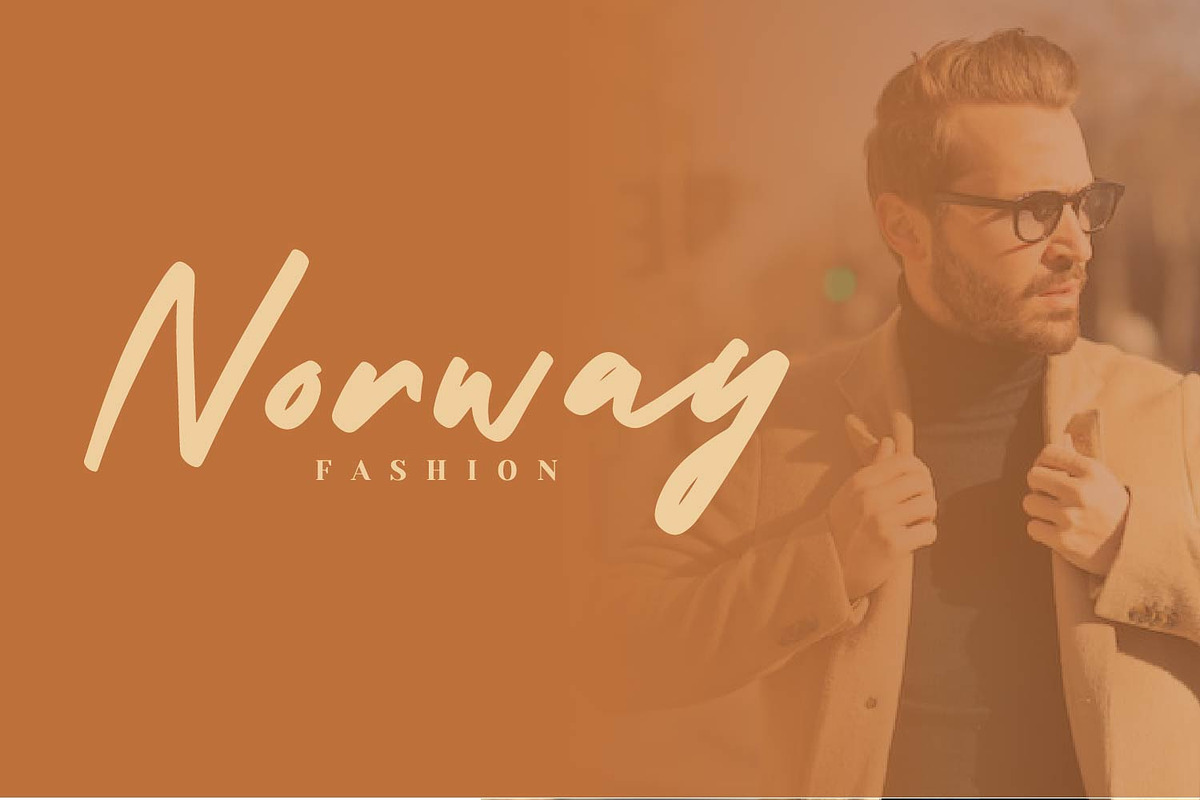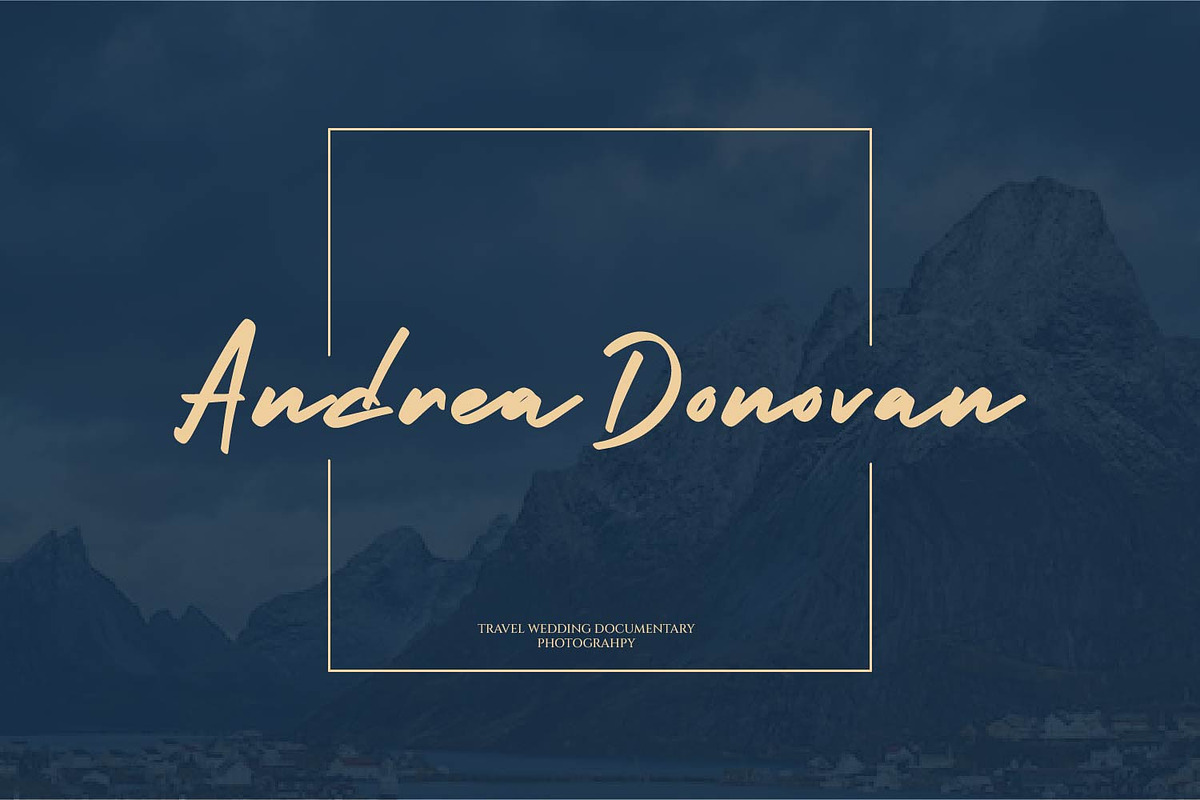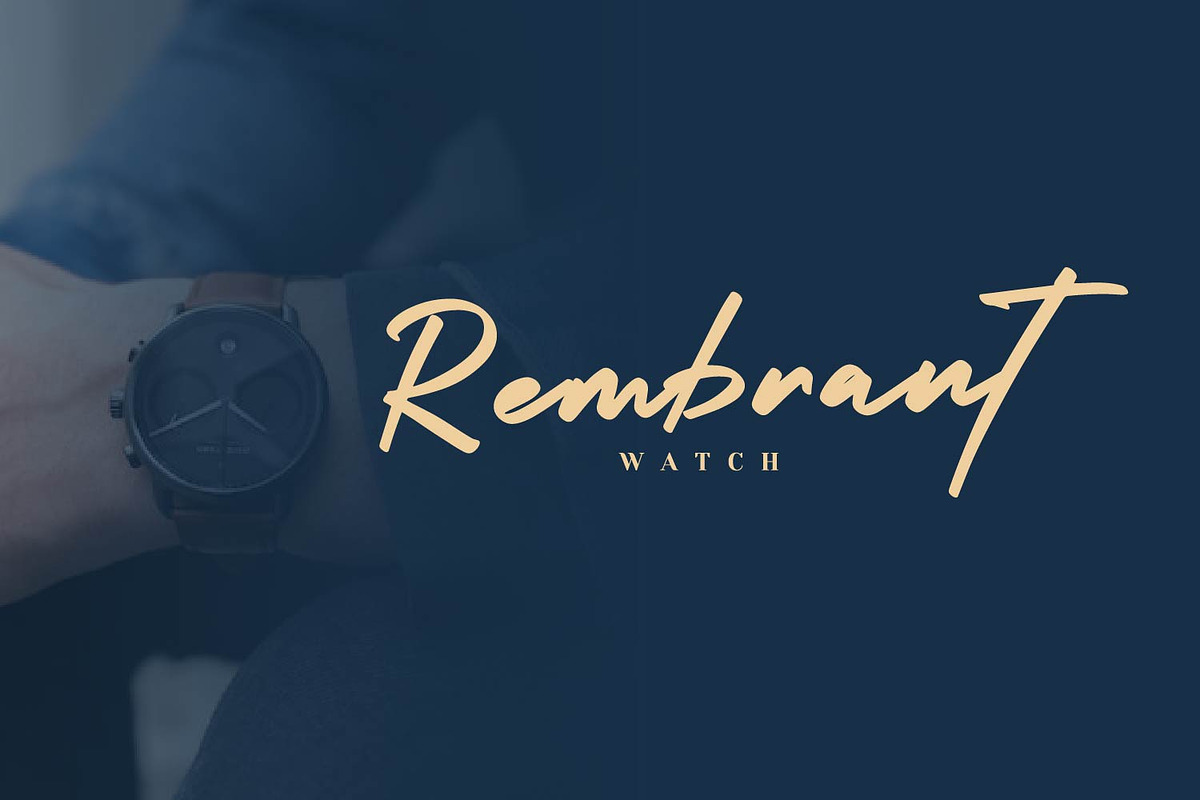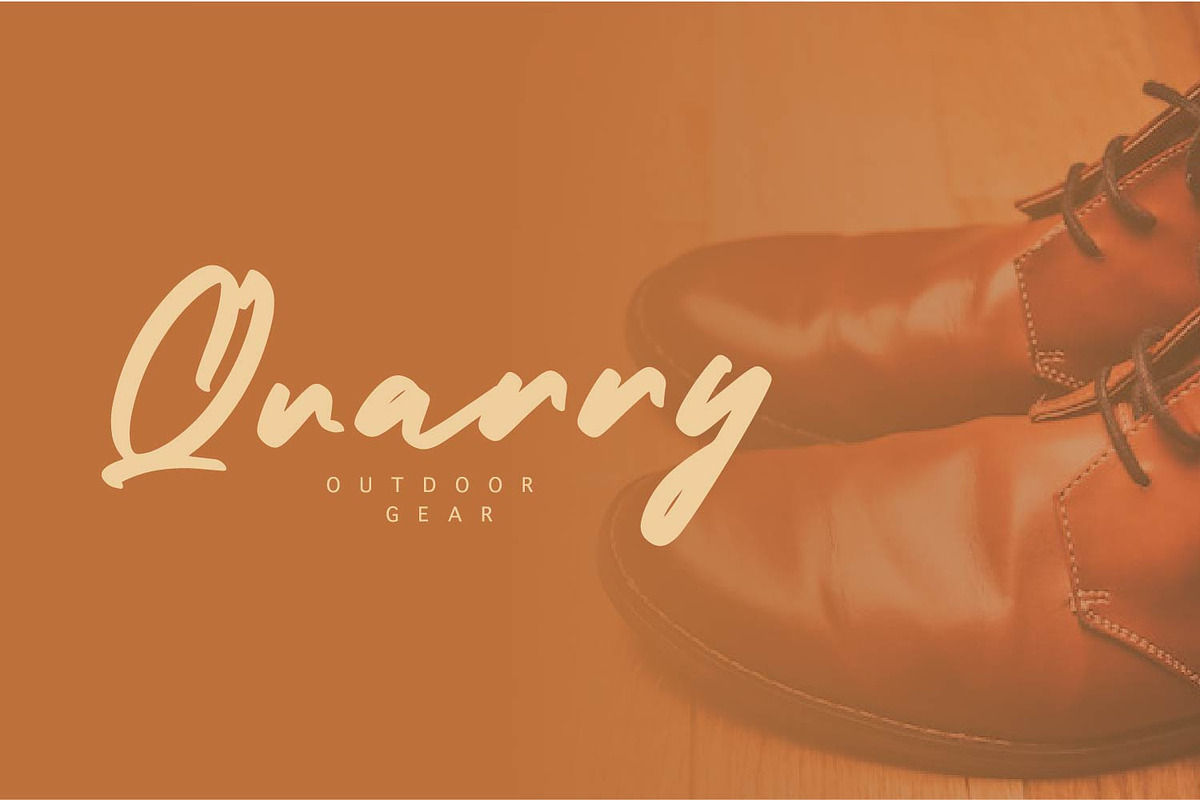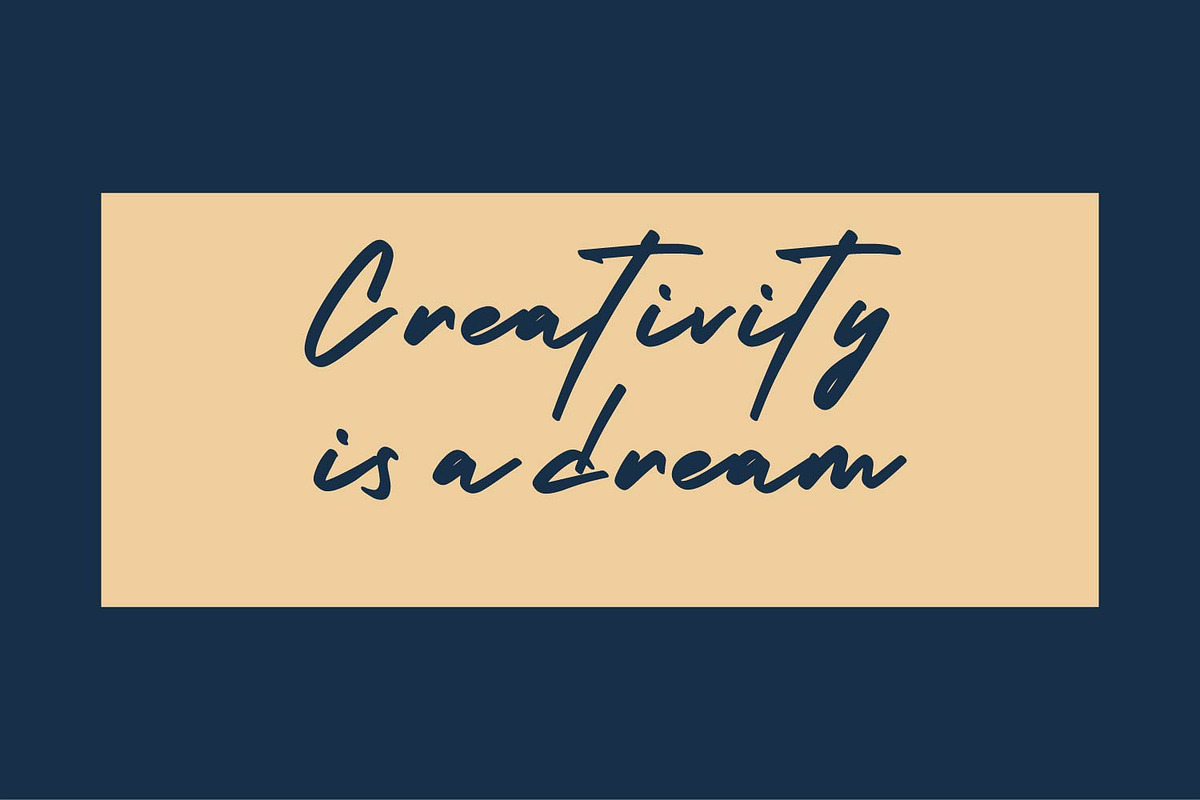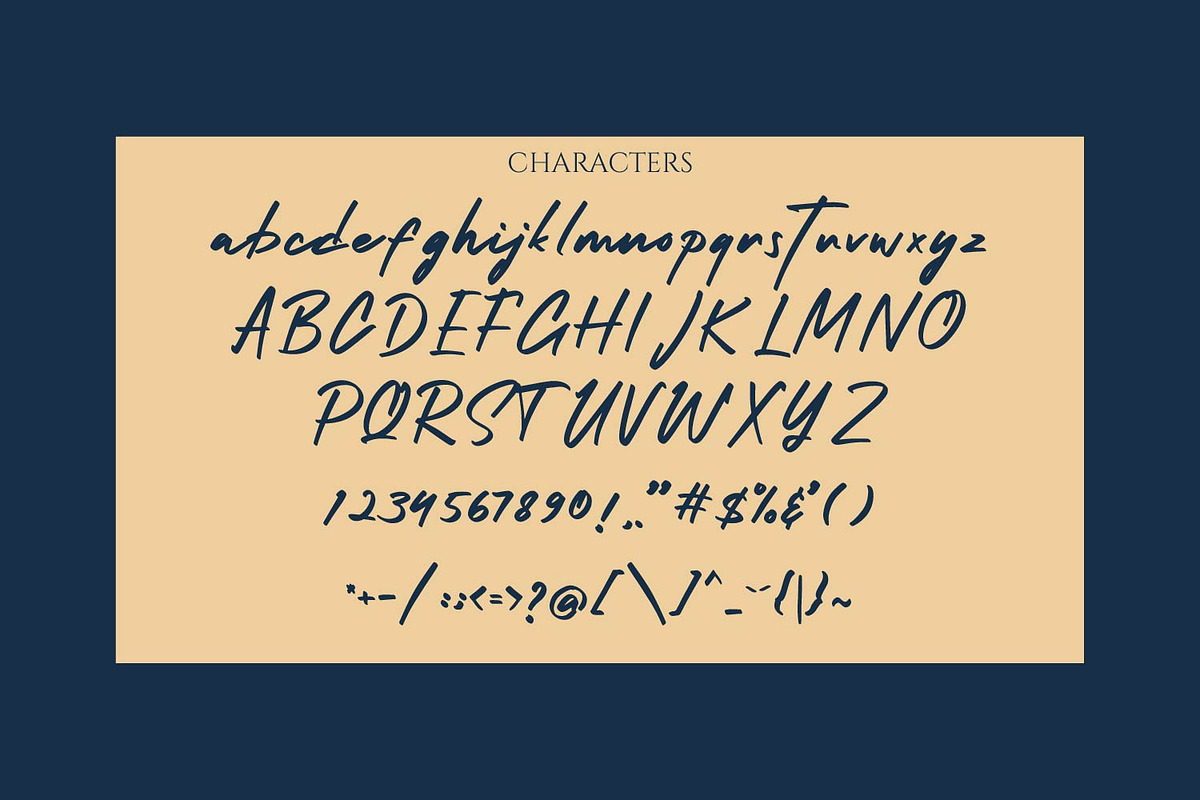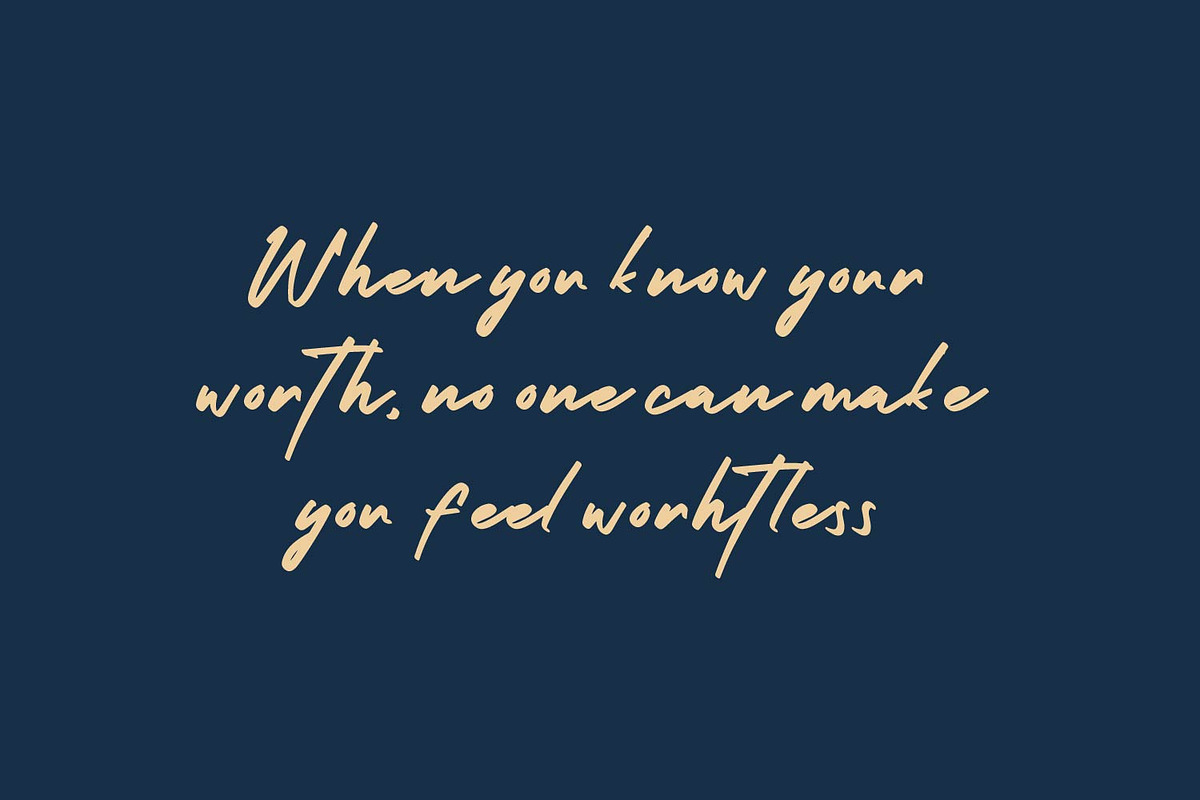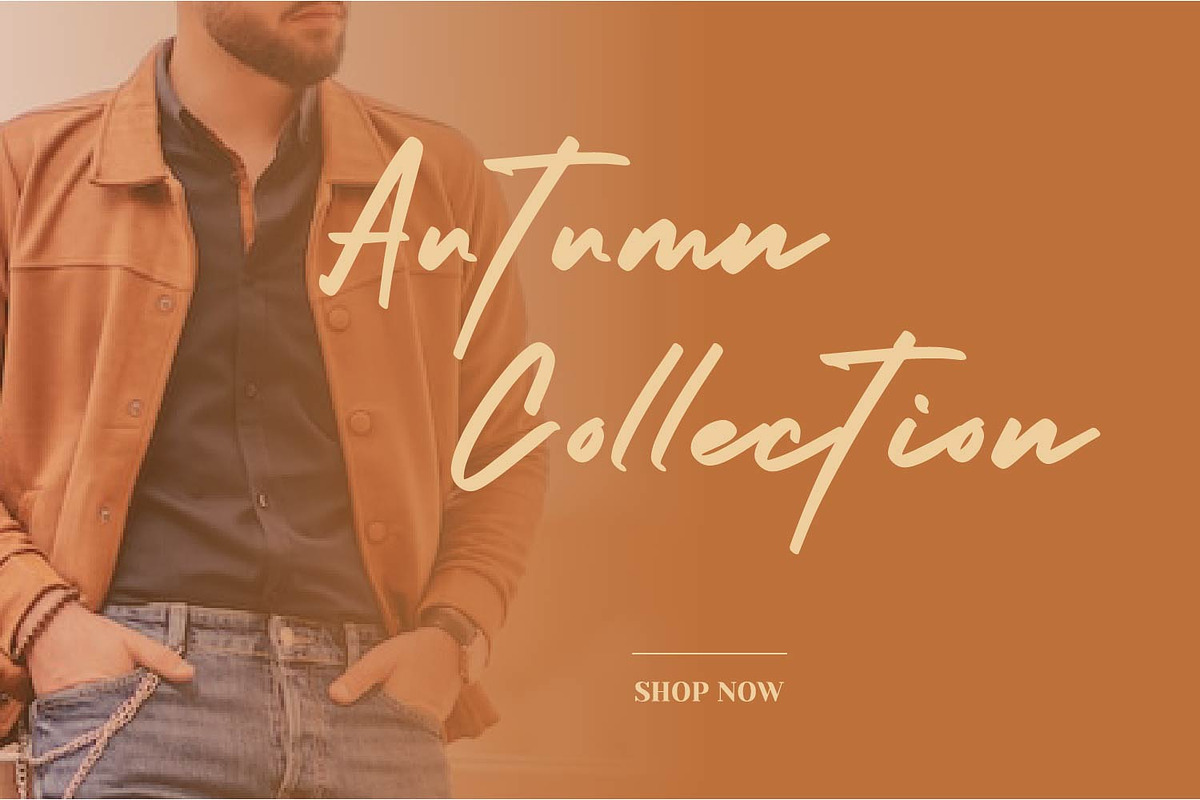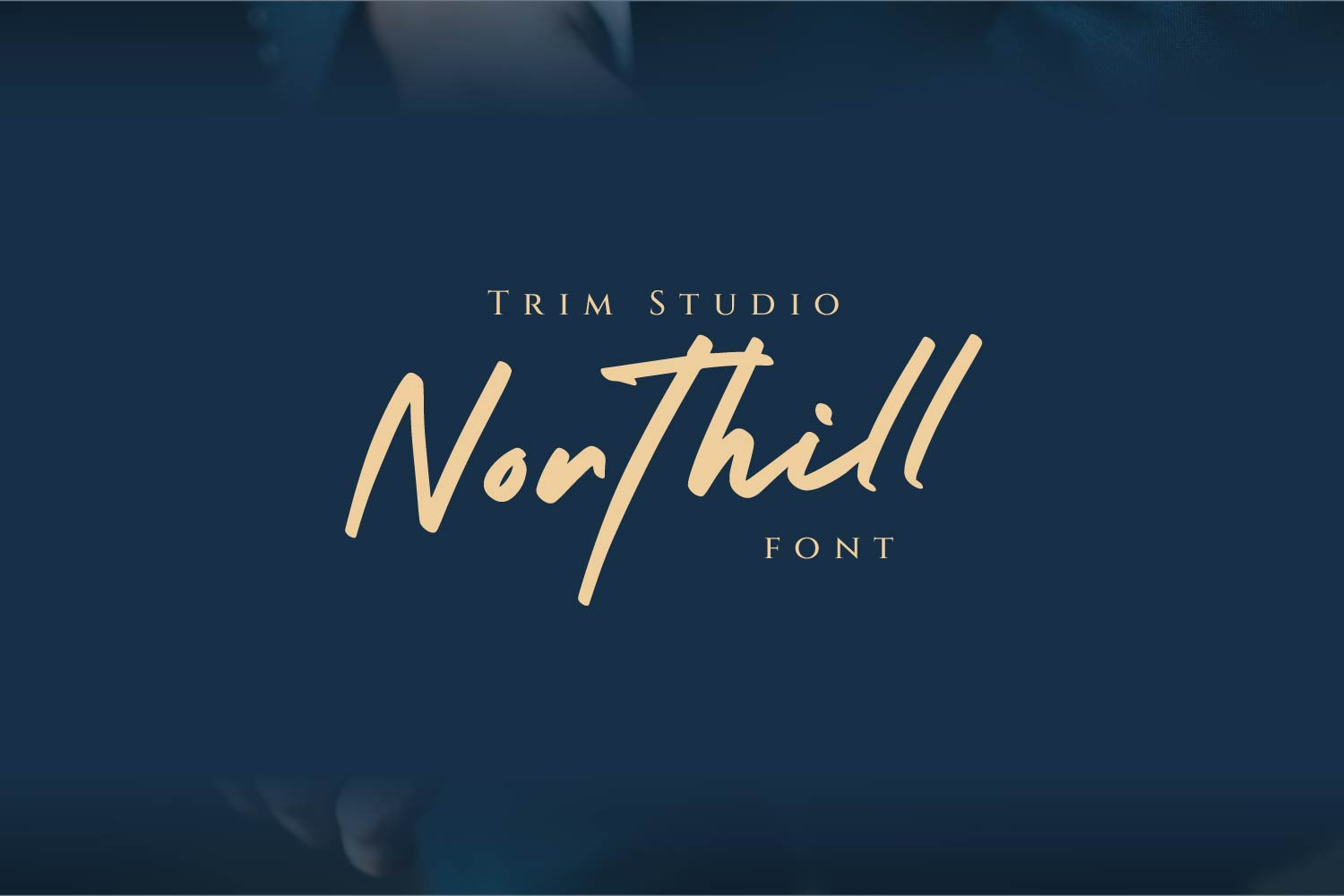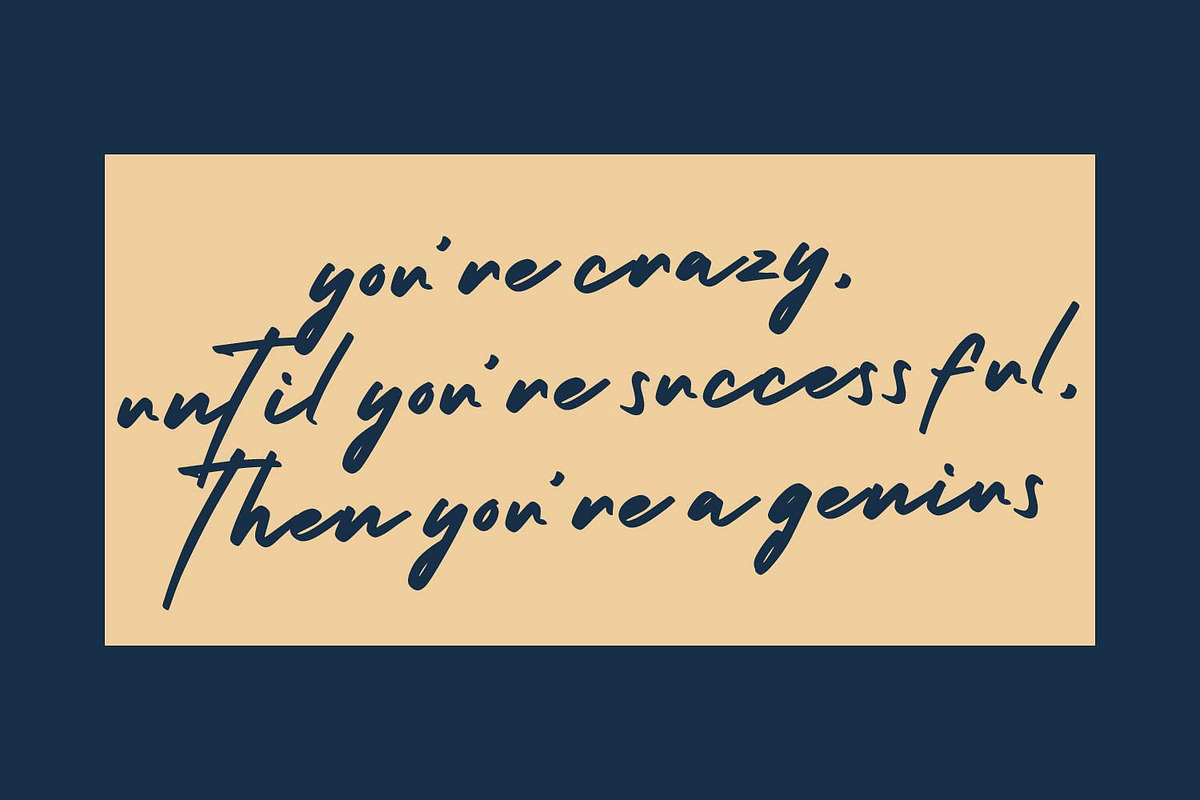
Northill - Signature Font
Northill is a Signature handwritten script with it has easy flow and simple moving up hand movement that create "personal" style for those who use this font